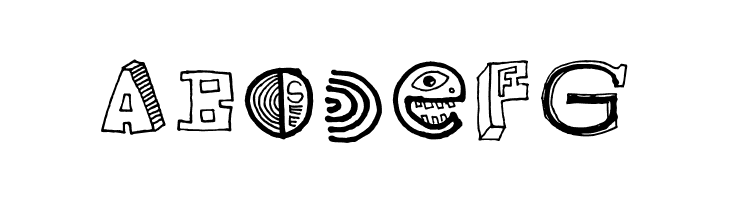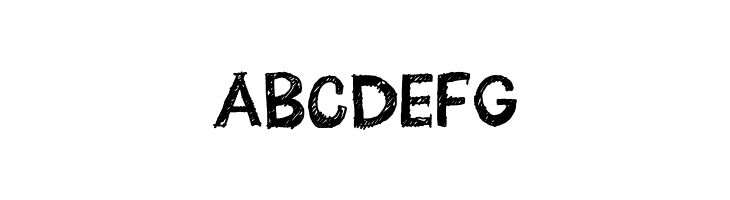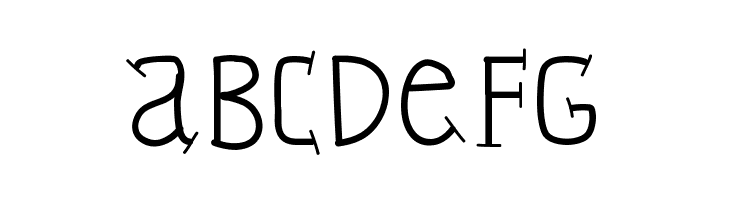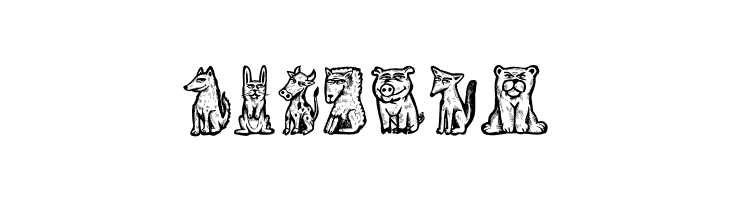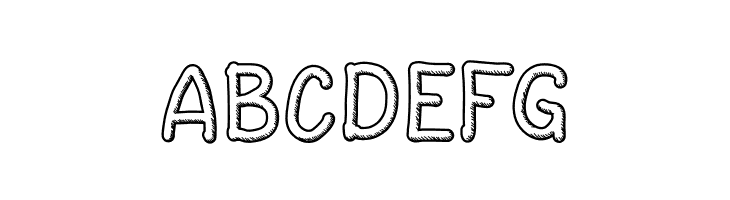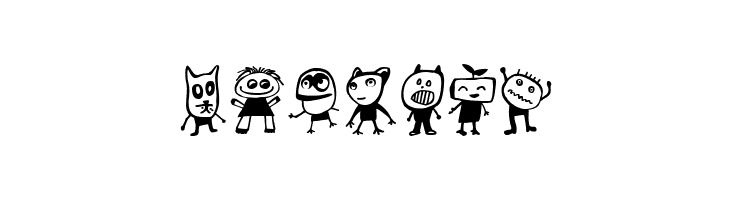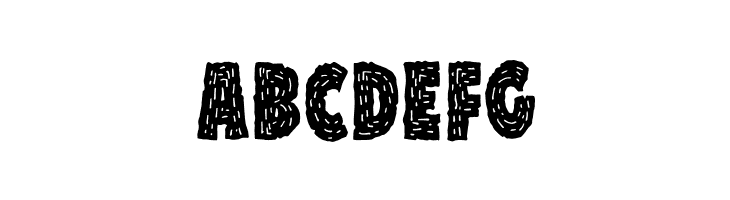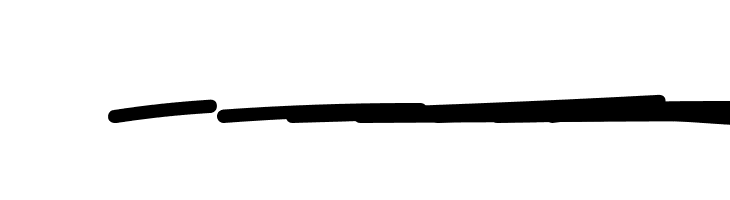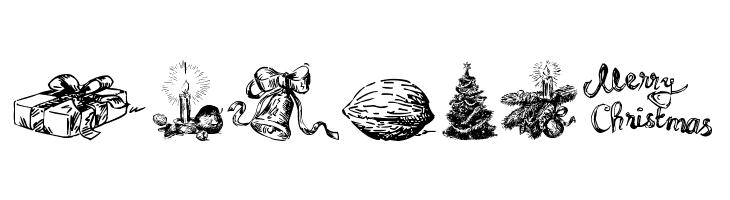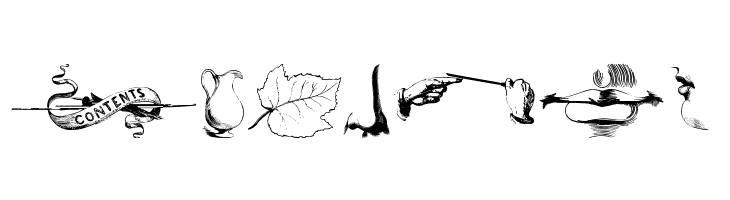
• Quick Pangolin
A playful, handwritten font with uneven strokes and a casual, energetic style.
• High School Notebook Regular
• Quick Pencil Regular
• Messy Marvin Regular
• YBSticksAndStones
• Tierfarm Regular
A decorative font with charming animal illustrations for each character.
• Peanut
A playful, hand-drawn style with bold, textured outlines and rounded forms.
• Kinderskizzen Regular
A whimsical, hand-drawn font featuring quirky, cartoon-like characters.
• SnackPatrolDEMO
• Msft Pride Rules
A bold, hand-drawn style with uneven, wavy lines for a playful, artistic look.
• Christmas Nativity TFB
A decorative font with hand-drawn Christmas-themed illustrations.
• Illustrations tfb
Illustrative display font with hand-drawn vintage sketches for each character.
• Summer Coast Extra
A playful, hand-drawn set of summer-themed symbols and shapes.
• ukikusa
A playful, hand-drawn font with whimsical symbols and icons.
• Penbytes_tile Regular
A playful, hand-drawn font with a boxed, doodle-like appearance.
• Quaker Shaker extra numbers
A playful, wavy outline font with a hand-drawn, doodle-like appearance.
• Scimmy Font Regular
A whimsical and playful display font with unique, illustrative letter designs.
• Kumba Scrawl Outline
A playful, hand-drawn outline font with a textured, artistic style.
• Pattheda
A lively, handwritten-style font with dynamic, fluid strokes.
• Testify
A playful, hand-drawn font with a casual and whimsical style.
• Thalassophobia-Demo
A hand-drawn, playful font with irregular strokes and an artistic flair.
• MarkerNo3HUN Rough II
A rugged, hand-drawn font with sharp, angular strokes and a graffiti-like appearance.
• DoodlePen
A playful, hand-drawn font with doodle-like strokes and an artistic flair.